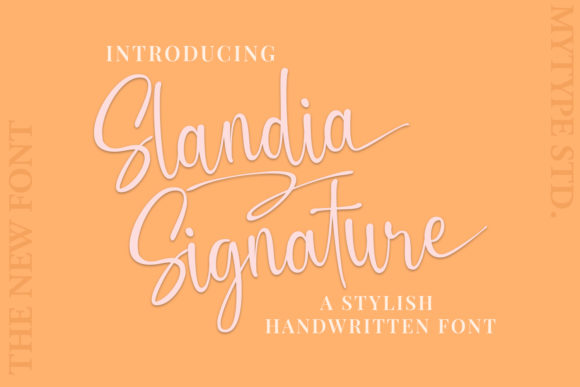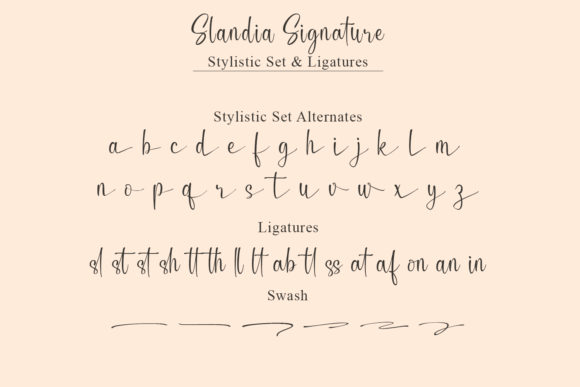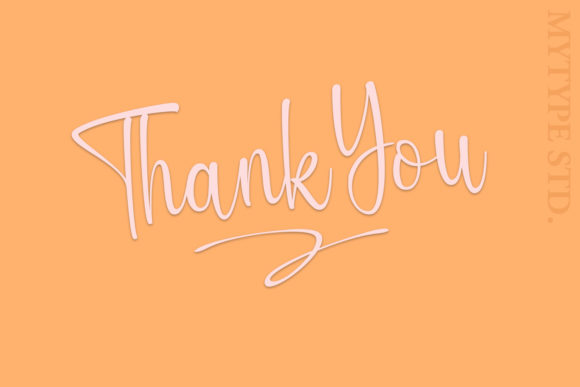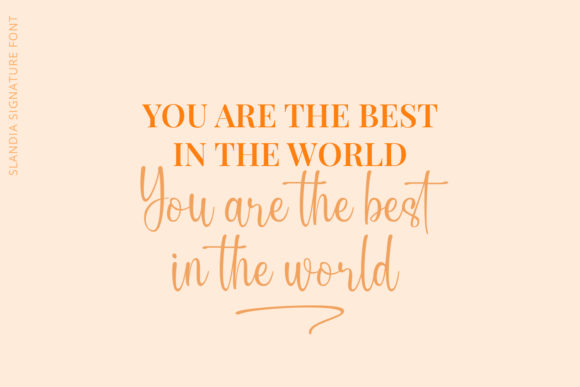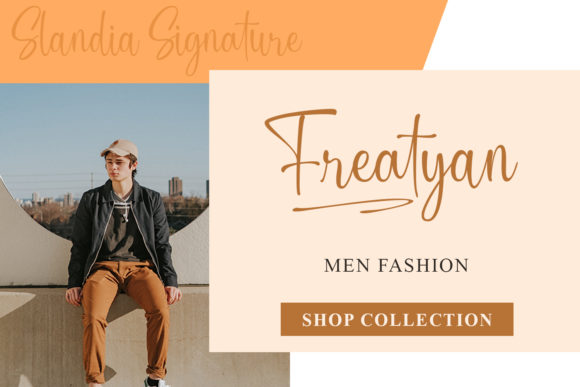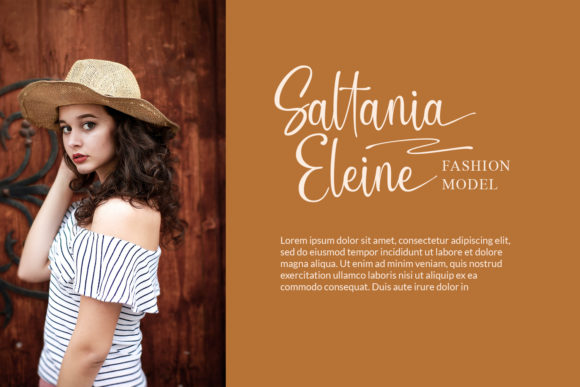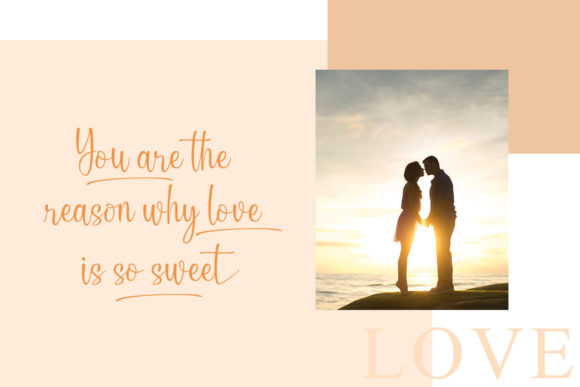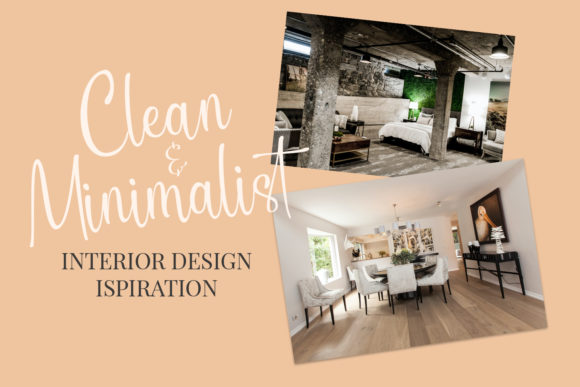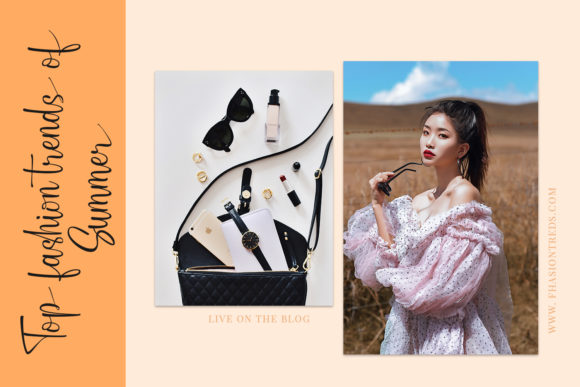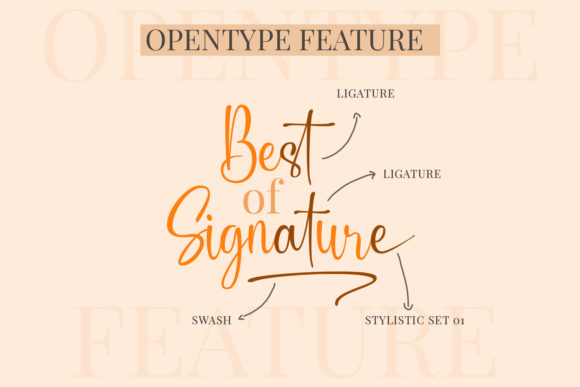
Slandia Signature Font
About Slandia Signature Font
Slandia Signature is a lovely and timeless handwritten font. It is the best choice for creating eye catching logos, branding and quotes. Every letter has a unique and beautiful touch, which will make your design come alive! This font is PUA encoded which means you can access all of the glyphs and swashes with ease!